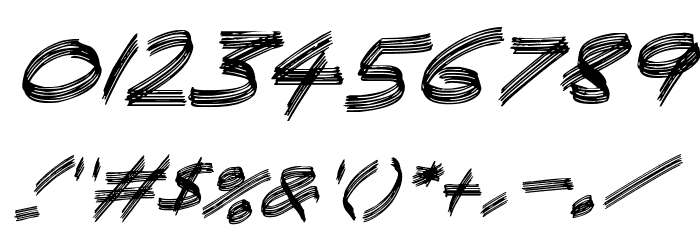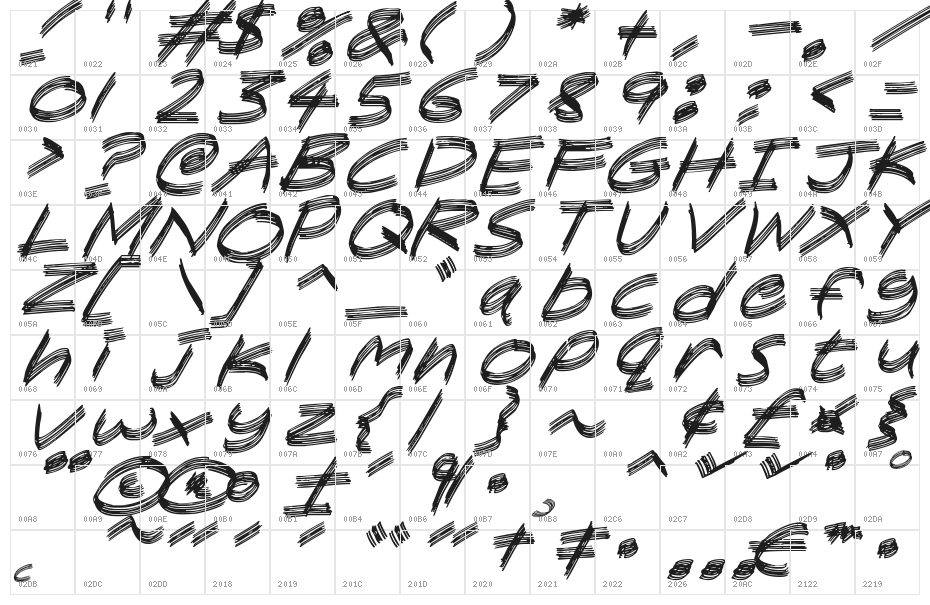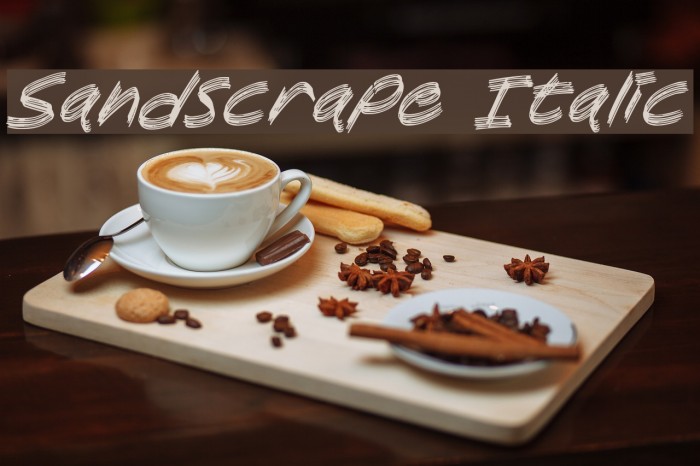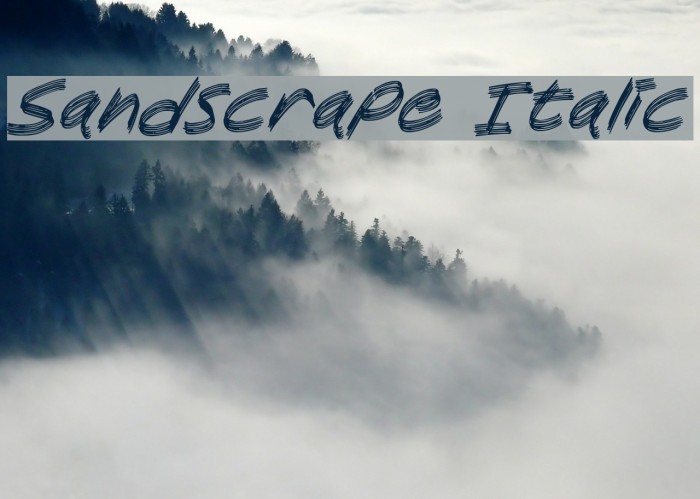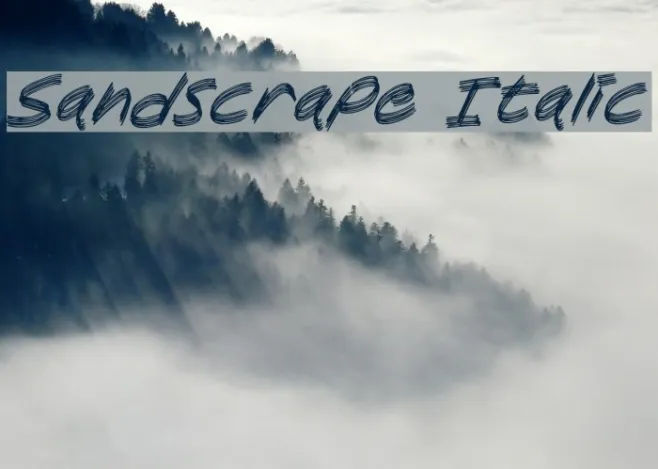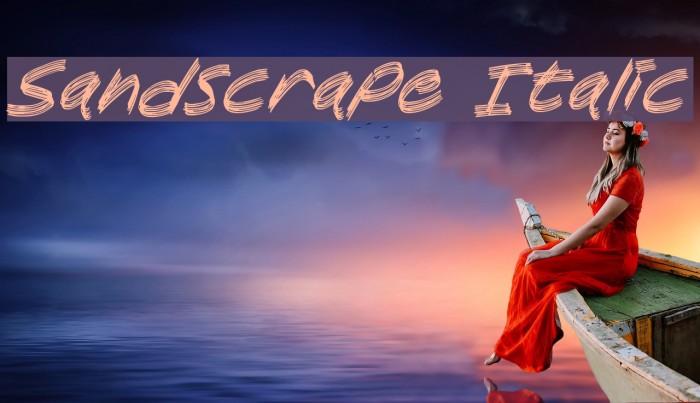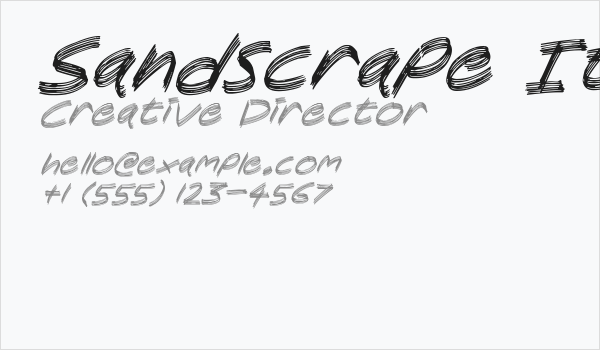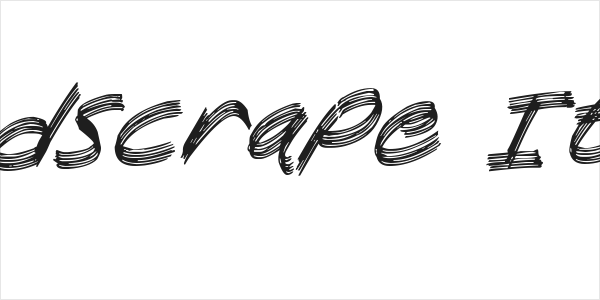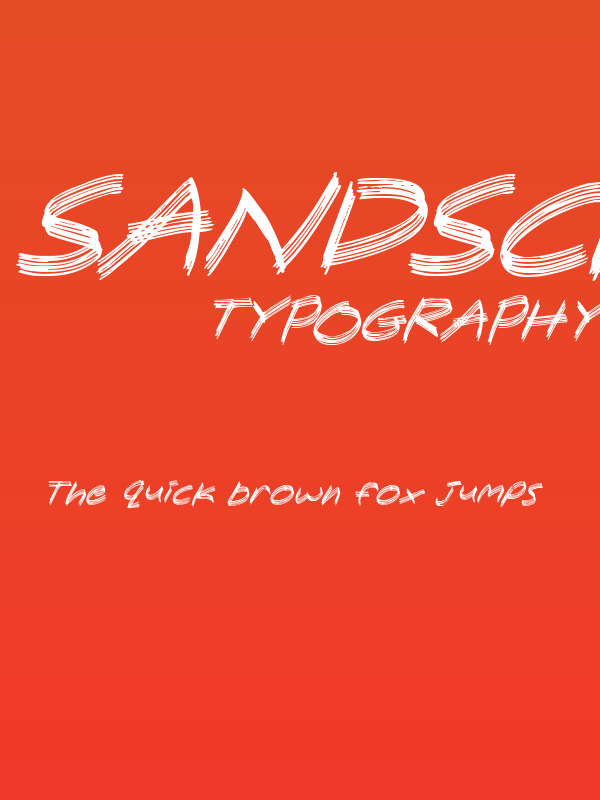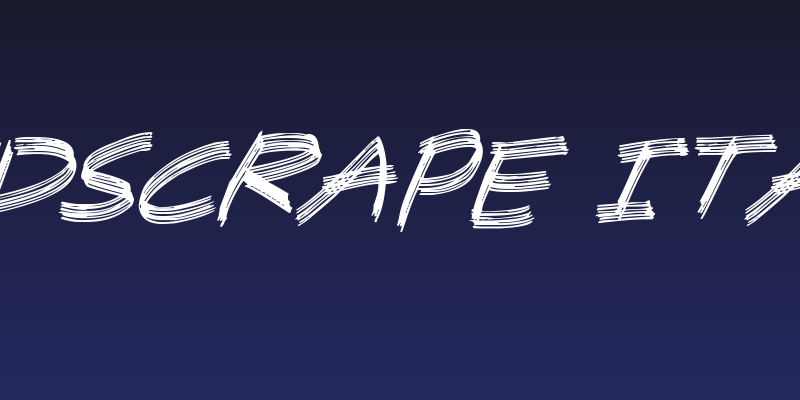
Sandscrape Italic Font
Sandscrape Italic Description
This font features a dynamic, hand-drawn style with a distinct italic slant, giving it an energetic and expressive appearance. The strokes are bold and textured, resembling brush strokes or scribbles, which adds a sense of movement and spontaneity. The characters are slightly condensed, enhancing the compact and lively feel. The uppercase and lowercase letters maintain a consistent style, with unique, playful variations in each character. Numbers and special characters follow the same energetic design, making the font versatile for creative projects.
Proposed ProjectsIdeal for artistic posters, branding for creative industries, album covers, and any project needing a bold, expressive touch.